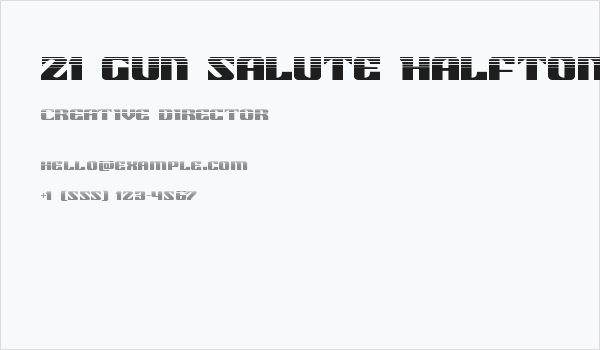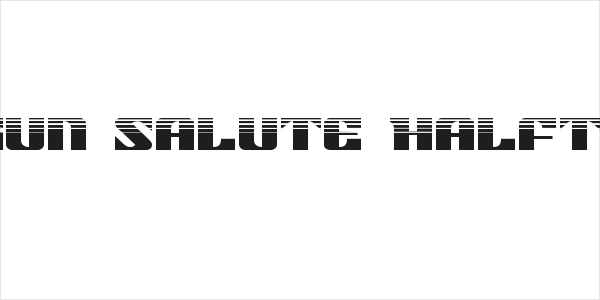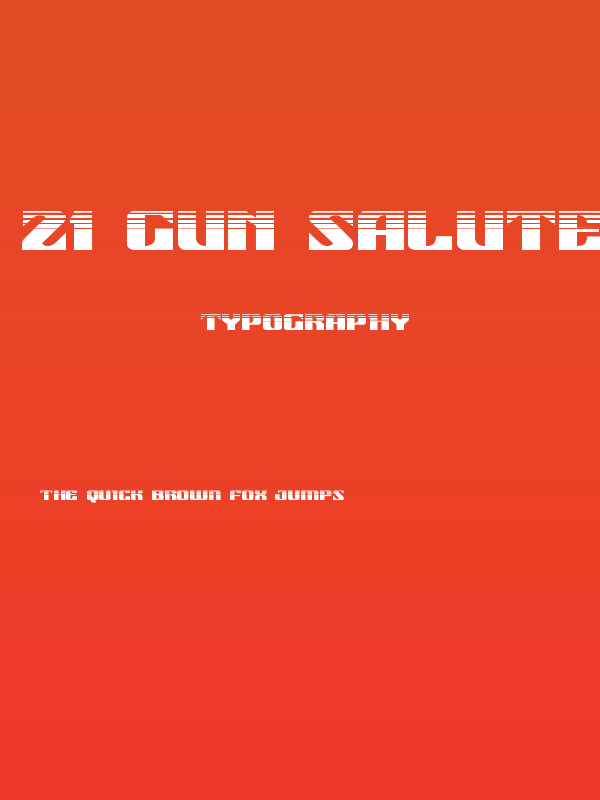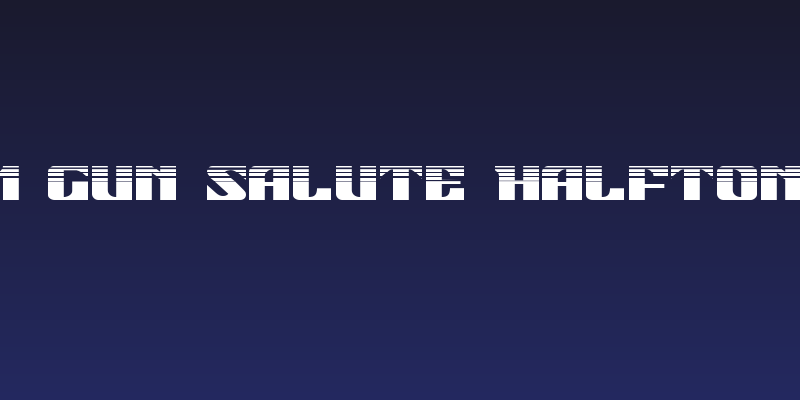
21 Gun Salute Halftone Font
21 Gun Salute Halftone Description
This font features a bold and striking design with a halftone effect that creates a sense of depth and texture. The characters are wide and blocky, with horizontal lines cutting through each letter, giving it a unique, industrial feel. The uppercase and lowercase letters maintain a consistent style, while the numbers and special characters complement the overall aesthetic. This font is ideal for making a strong visual impact, with its bold presence and distinctive pattern.
Proposed ProjectsIdeal for posters, album covers, branding, and any project requiring a bold, eye-catching typeface.